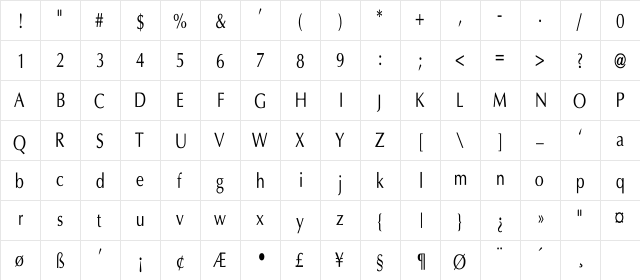
Optima-Thin Cn Regular
Design Context for Optima-Thin Cn Typeface
Optima-Thin Cn offers clean, dependable letterforms without strong stylistic allegiance, making it a practical choice for designers who need flexibility. Its slender proportions lend an understated elegance to any composition.